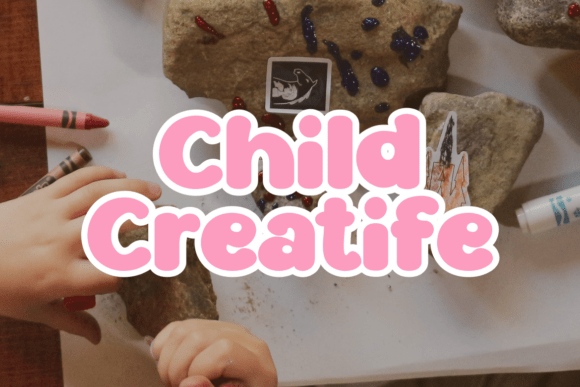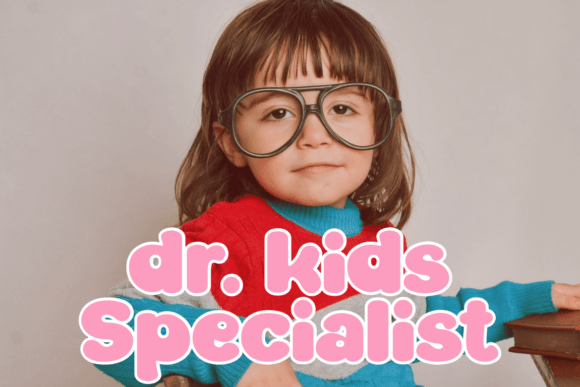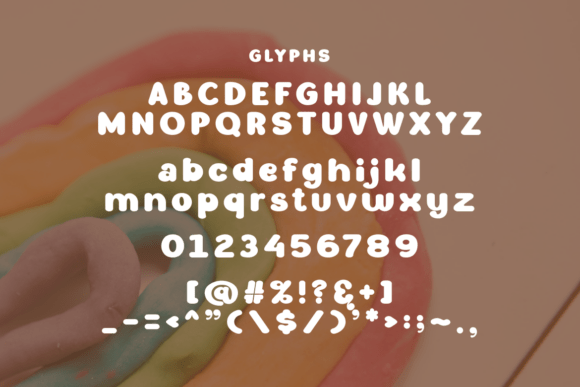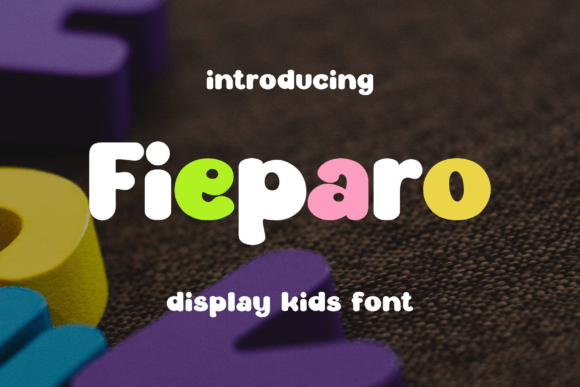
Unleash the Joyful Spirit of Creativity with Fieparo Font
Are you tired of using the same old fonts for your creative projects? Look no further than Fieparo Font, a bold, chunky display font that radiates a playful energy like no other. This captivating font is perfect for children’s games, whimsical cartoons, and adrenaline-filled sport-themed endeavors. In this article, we’ll explore the charm and lively character of Fieparo, and how it can bring your innovative visions to life.
The Unique Characteristics of Fieparo Font
Fieparo Font is a one-of-a-kind font that exudes a sense of fun and playfulness. Its bold, chunky design makes it perfect for headlines, titles, and other display text. The font’s unique characteristics include:
- Bold and Chunky Design: Fieparo Font features a bold, chunky design that grabs attention and makes a statement.
- Playful Energy: The font’s playful energy is infectious, making it perfect for projects that require a sense of fun and whimsy.
- Highly Legible: Despite its bold design, Fieparo Font is highly legible, even at small sizes.
- Versatile: Fieparo Font can be used for a wide range of projects, from children’s games to sport-themed endeavors.
Perfect for Children’s Games and Cartoons
Fieparo Font is a natural fit for children’s games and cartoons. Its playful energy and bold design make it perfect for:
- Game Titles and Headlines: Use Fieparo Font to create eye-catching game titles and headlines that kids will love.
- Cartoon Characters: Fieparo Font is perfect for creating cartoon characters that are fun, playful, and engaging.
- Storybook Text: Use Fieparo Font to create engaging storybook text that’s perfect for kids’ books.
Adrenaline-Filled Sport-Themed Endeavors
Fieparo Font is not just limited to children’s games and cartoons. Its bold, chunky design makes it perfect for adrenaline-filled sport-themed endeavors, such as:
- Sport Logos and Branding: Use Fieparo Font to create bold, eye-catching sport logos and branding.
- Poster and Flyer Text: Fieparo Font is perfect for creating poster and flyer text for sport events.
- Social Media Graphics: Use Fieparo Font to create engaging social media graphics for sport teams and athletes.
Why Designers and Crafters Love Fieparo Font
Designers and crafters love Fieparo Font for its unique characteristics and versatility. Here are just a few reasons why:
- Customizable: Fieparo Font can be customized to fit your specific design needs.
- High-Quality: Fieparo Font is a high-quality font that’s perfect for professional design projects.
Get Ready to Unleash Your Creativity with Fieparo Font
In conclusion, Fieparo Font is a unique and versatile font that’s perfect for designers and crafters who want to add a touch of playfulness and creativity to their projects. With its bold, chunky design and highly legible text, Fieparo Font is perfect for a wide range of projects, from children’s games to sport-themed endeavors. So if you’re looking for a font that will bring your innovative visions to life, look no further than Fieparo Font.